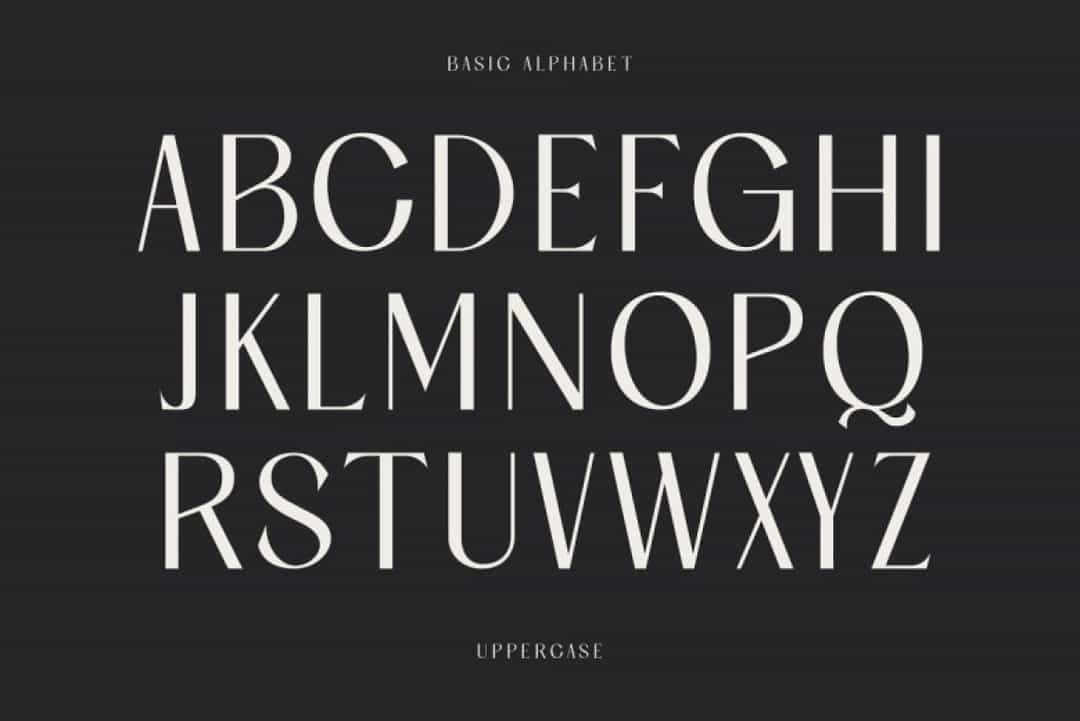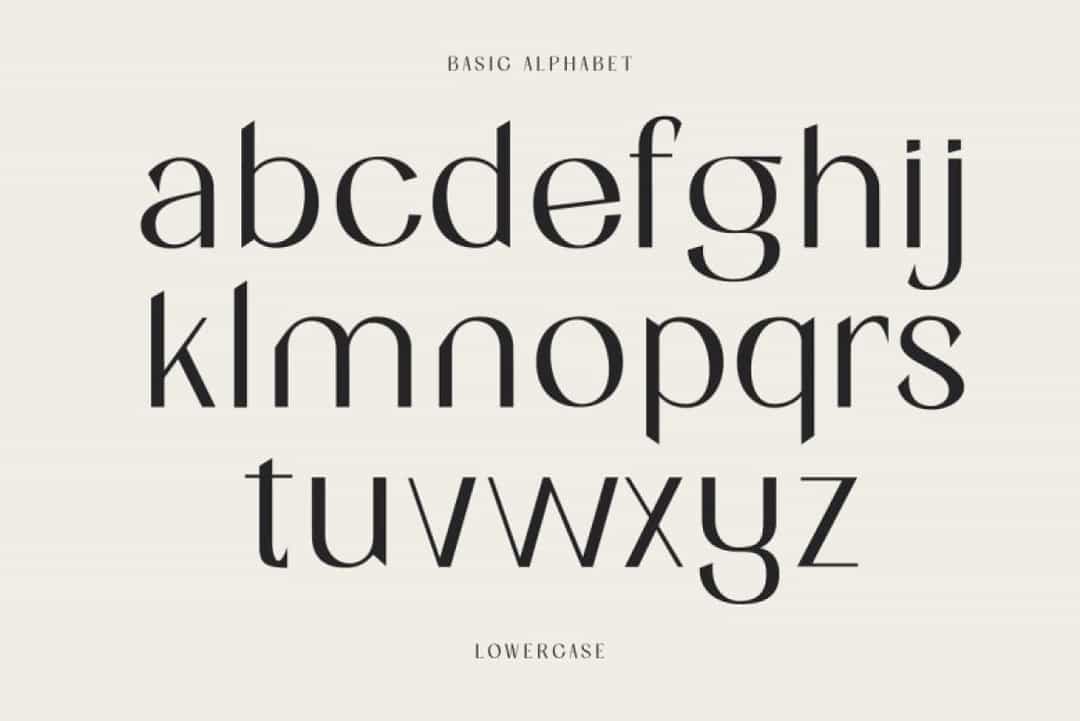
Bagea Modern Minimalism Font is an ideal design font for modern minimalist styles, featuring clean and minimalist letterforms – it works well as album titles, movie cover fonts, fashion style fonts and much more! It comes complete with its own font family that makes this font suitable for album covers as well.